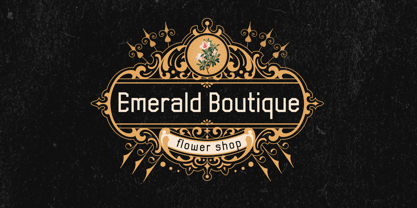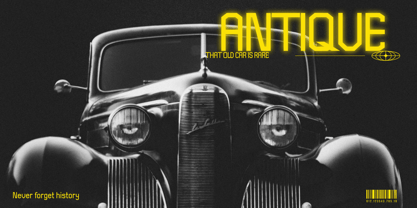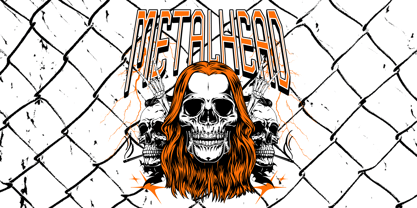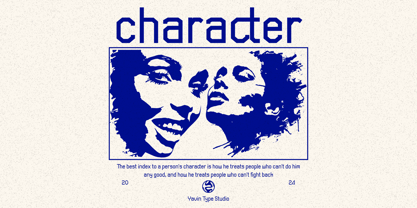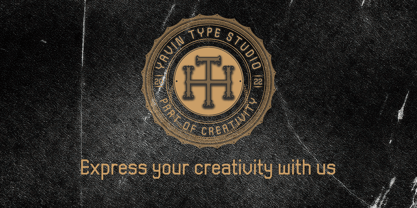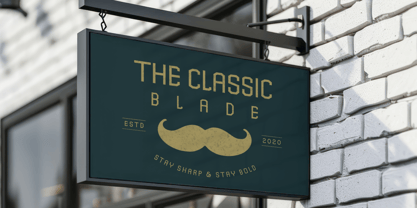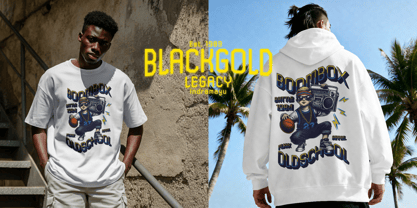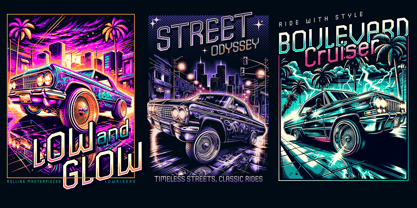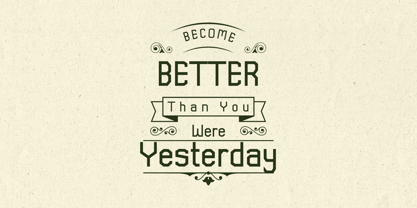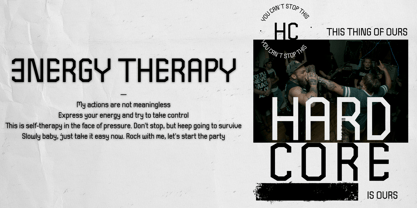
Sambiratta
by Yavin Type
The Sambiratta Font Family was designed by Amir Amir and published by Yavin Type. Sambiratta contains 1 styles. More about this family
Sambiratta is a modern display font that stands out with its geometric characters, sharp angles, and futuristic style. Exclusively designed by Yavin Type Studio, Sambiratta offers a unique look that is perfect for various creative and innovative design needs. Key Features: Over 200 glyphs: Includes a wide range of characters, symbols, and punctuation marks for diverse design projects. Ligatures & Alternates: Achieve a more dynamic appearance and character variation to make your designs even more captivating. Kerning Metrics: Precise letter spacing for professional and tidy results in every word. Multilingual Support: Supports multiple languages, making it suitable for international projects. Visual Characteristics: Angular, blocky, and modern letterforms. Ideal for headlines, logos, posters, product packaging, tech branding, and digital media with futuristic or retro vibes. Easily recognizable and provides a bold impression to your design. Recommended Use: Posters and flyers for science fiction, technology, or digital themes. Logos and visual identity for startups and innovative companies. Website, video, and app titles with a modern feel. Sambiratta by Yavin Type Studio is the perfect choice for designers who want to add a distinctive and characteristic touch to their creative works.